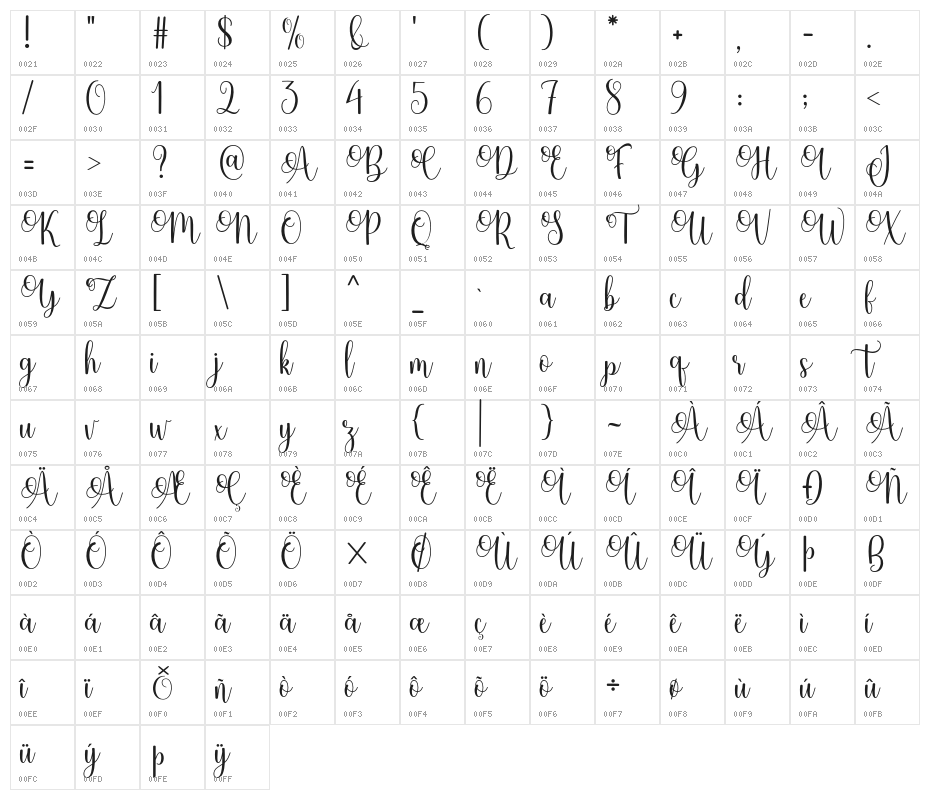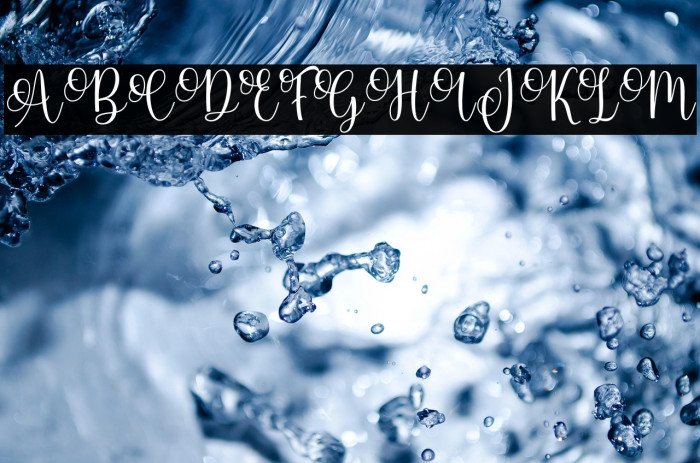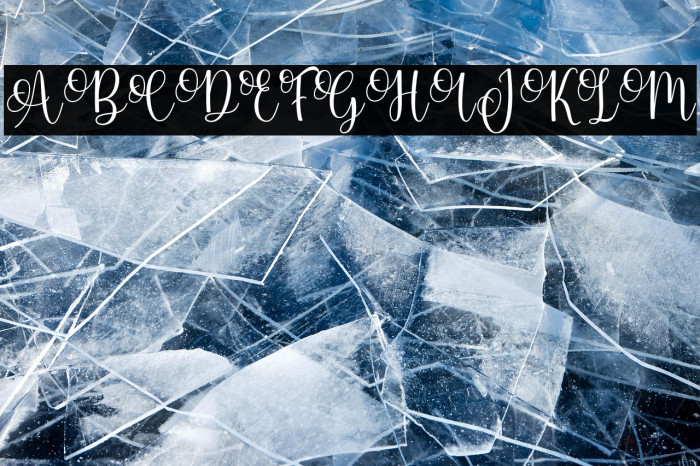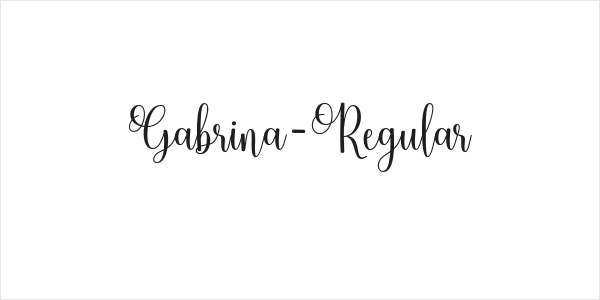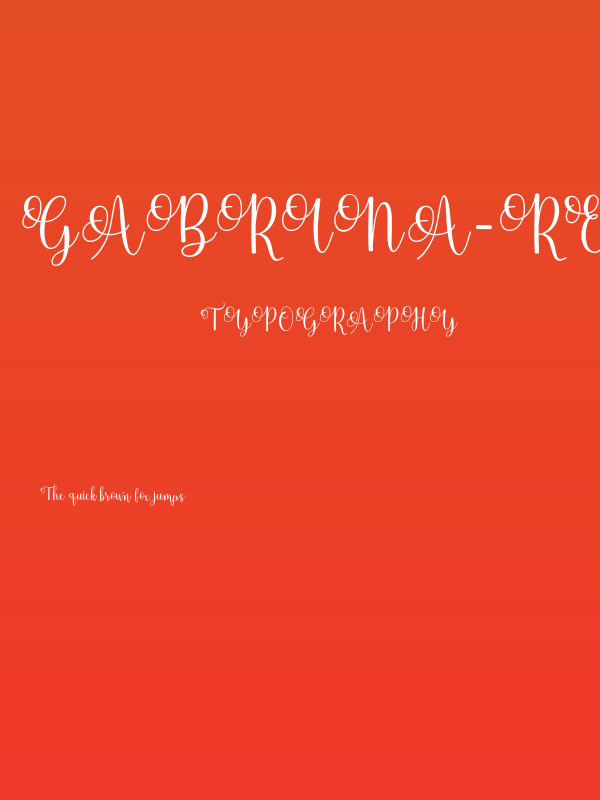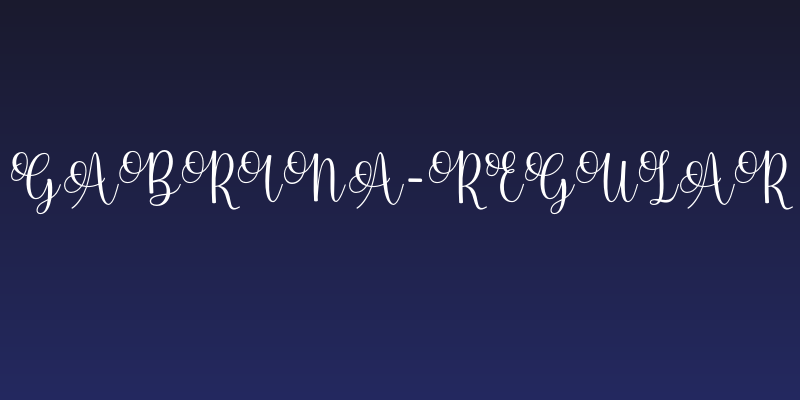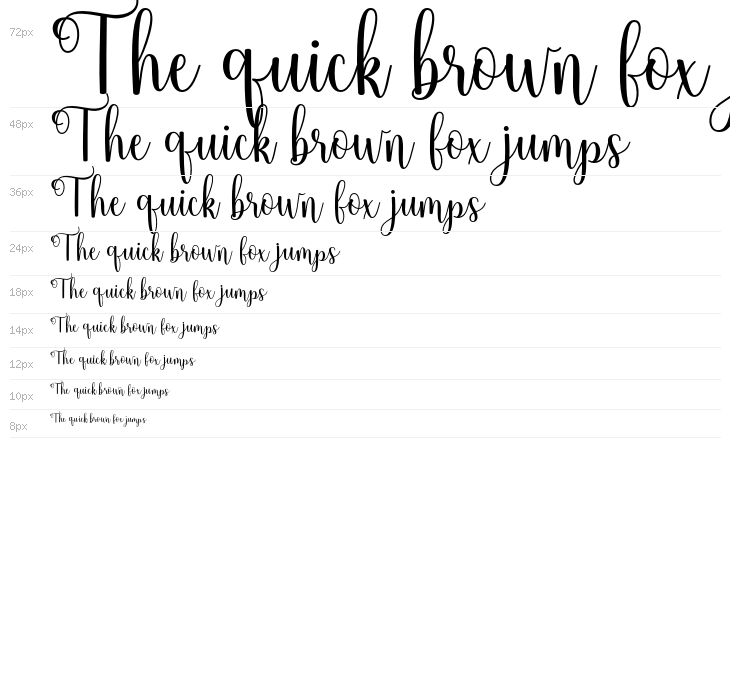
Gabrina-Regular Font
Gabrina-Regular Description
This font features an elegant and flowing script style, characterized by its intricate loops and swirls. The uppercase letters are particularly ornate, with decorative flourishes that give a sense of movement and grace. The lowercase letters maintain a consistent style, with smooth, connected strokes that enhance readability while retaining a sophisticated appearance. The numerals are slender and tall, complementing the overall aesthetic of the font. Special characters are designed with the same attention to detail, ensuring they blend seamlessly with the letters and numbers. This font is ideal for projects that require a touch of elegance and sophistication.
| Overall Style | Elegant, Decorative |
| Proposed Projects | Ideal for wedding invitations, elegant branding, greeting cards, and decorative signage. |